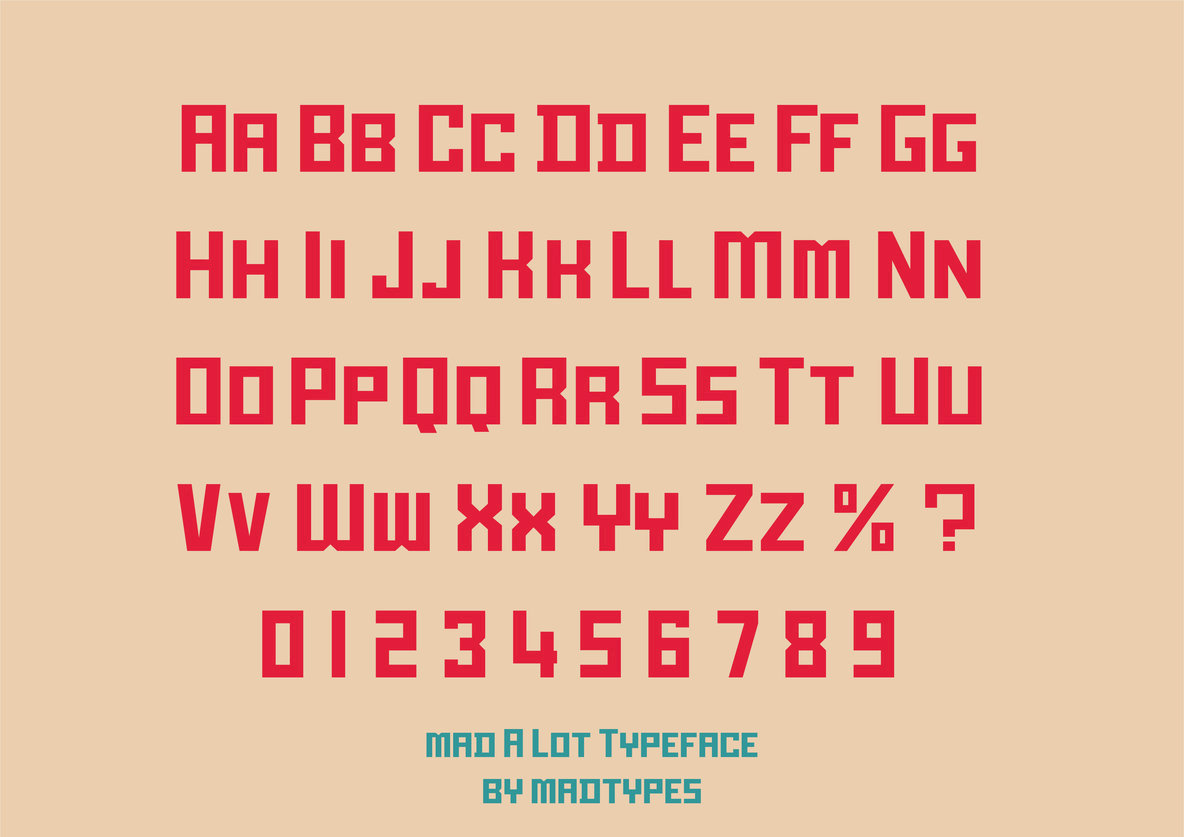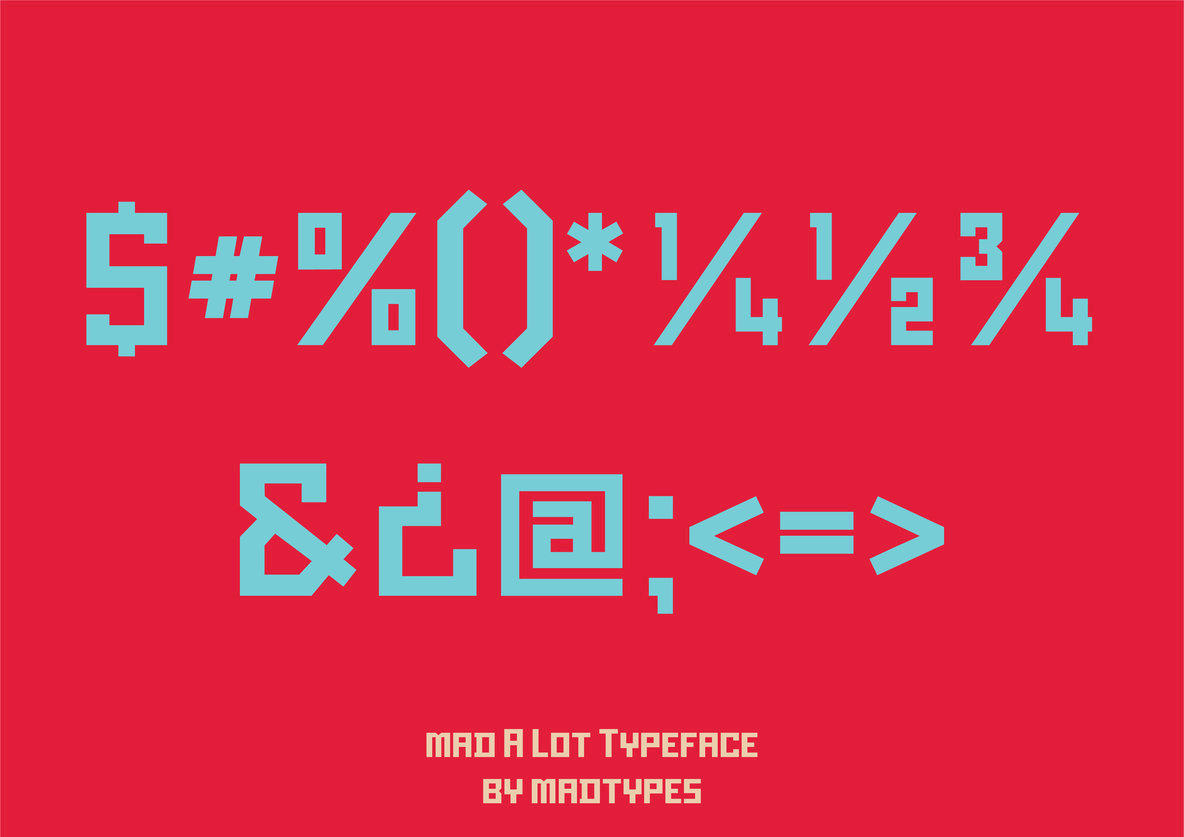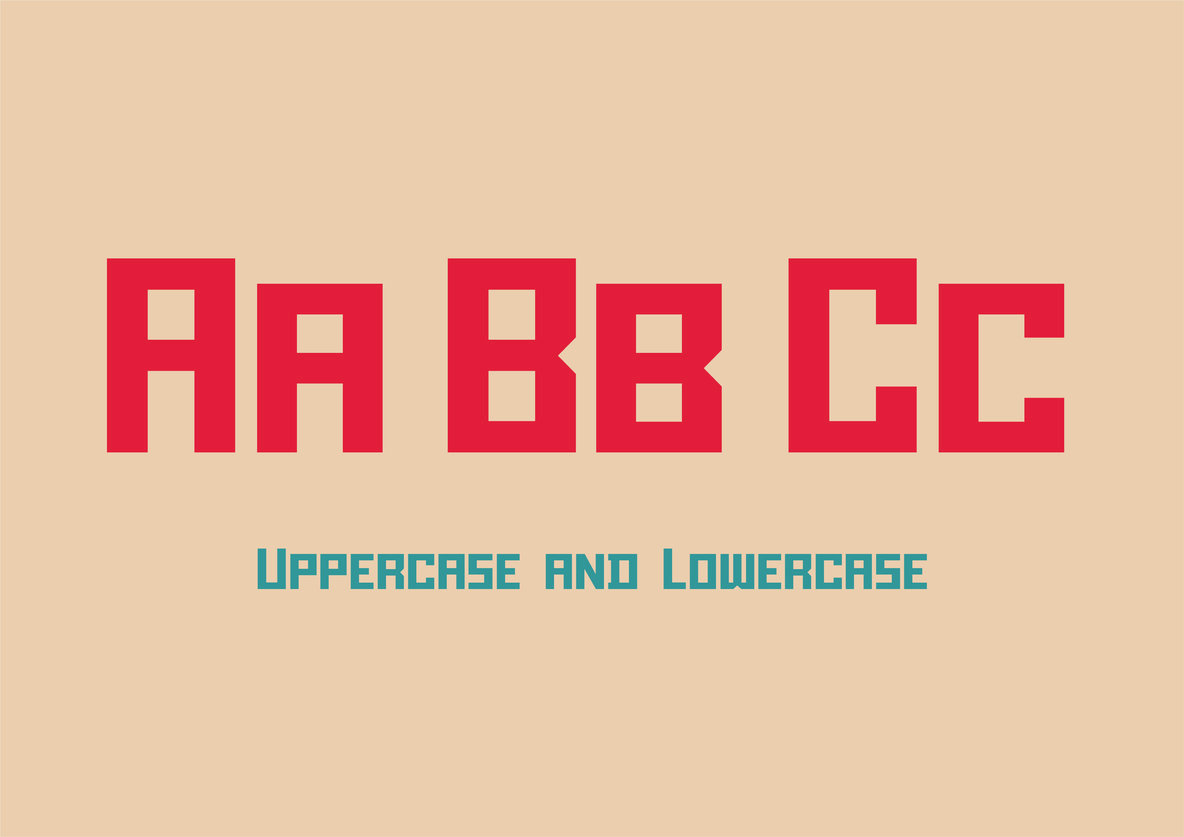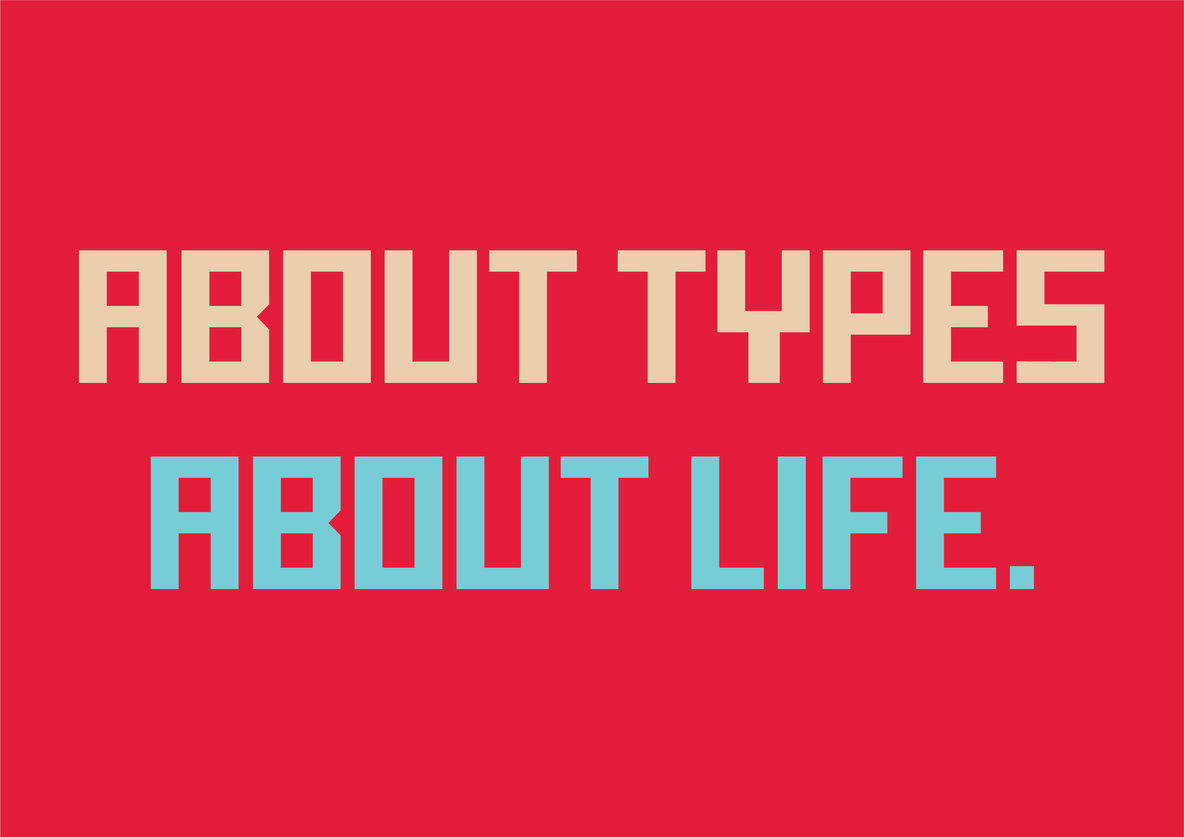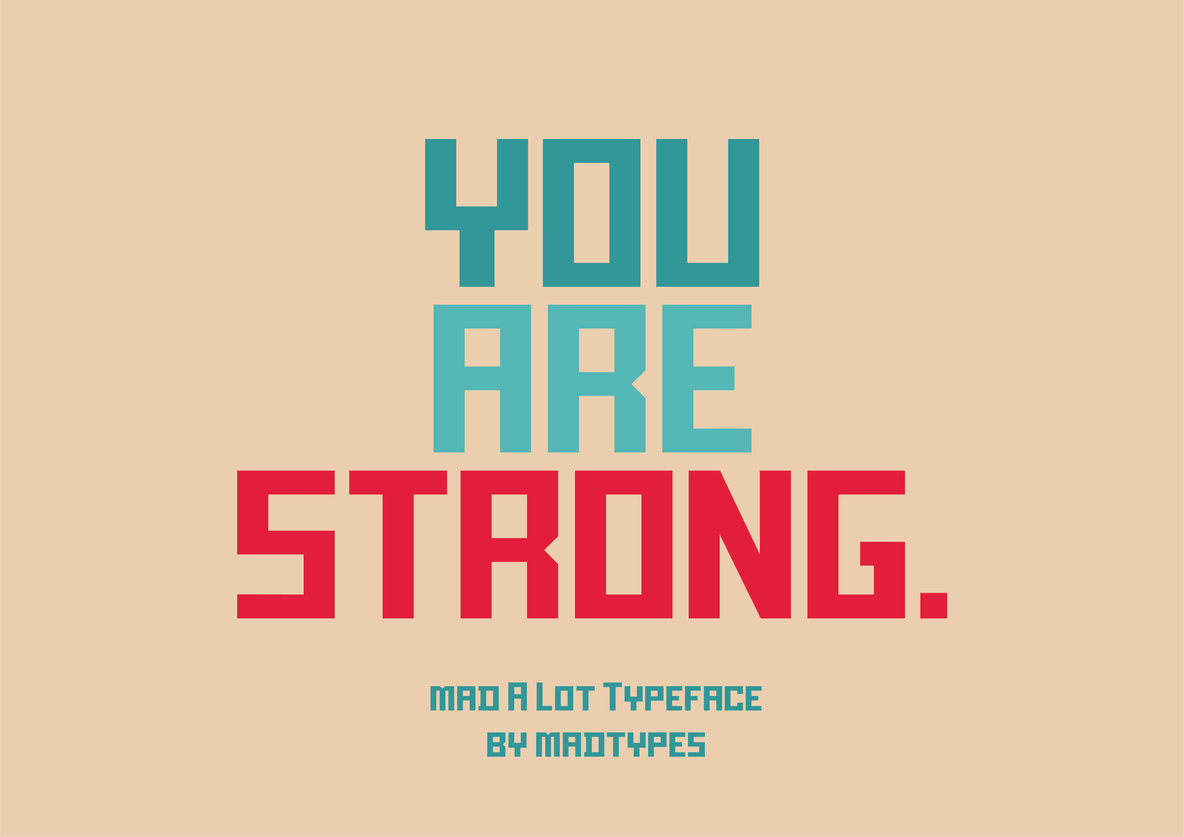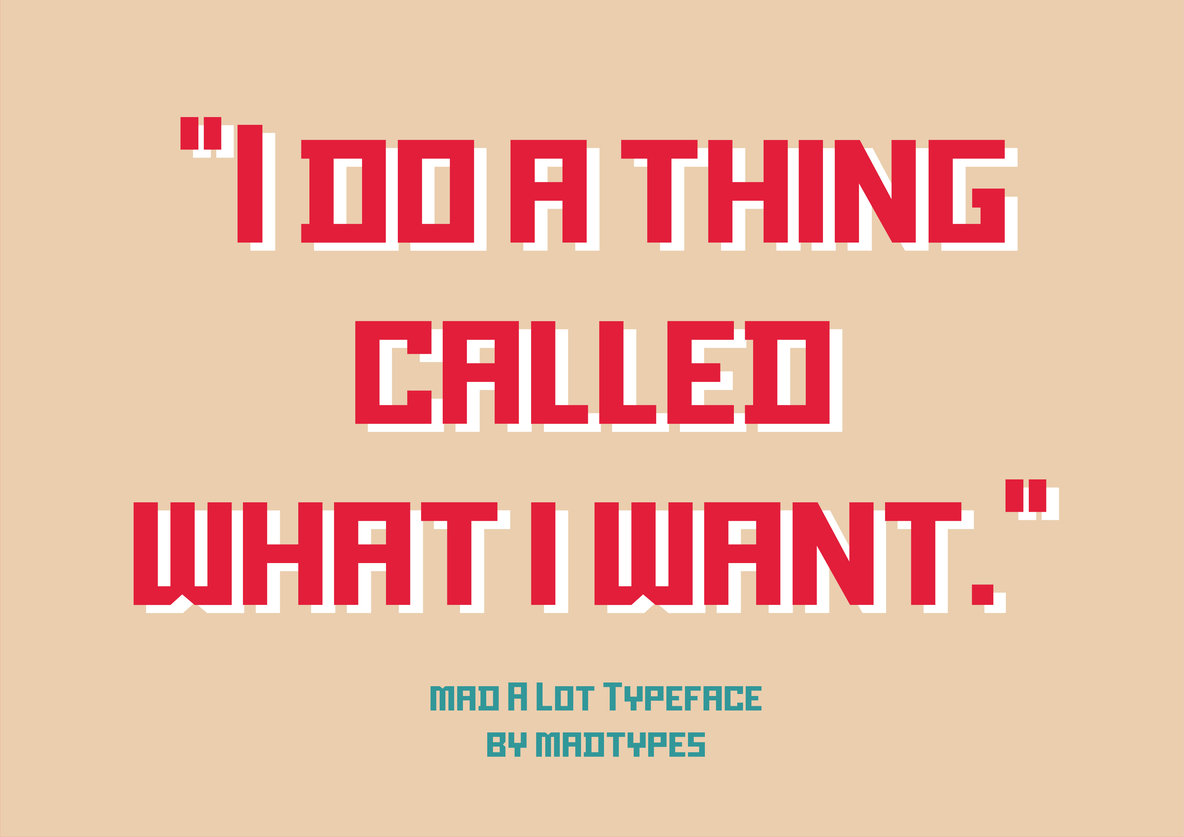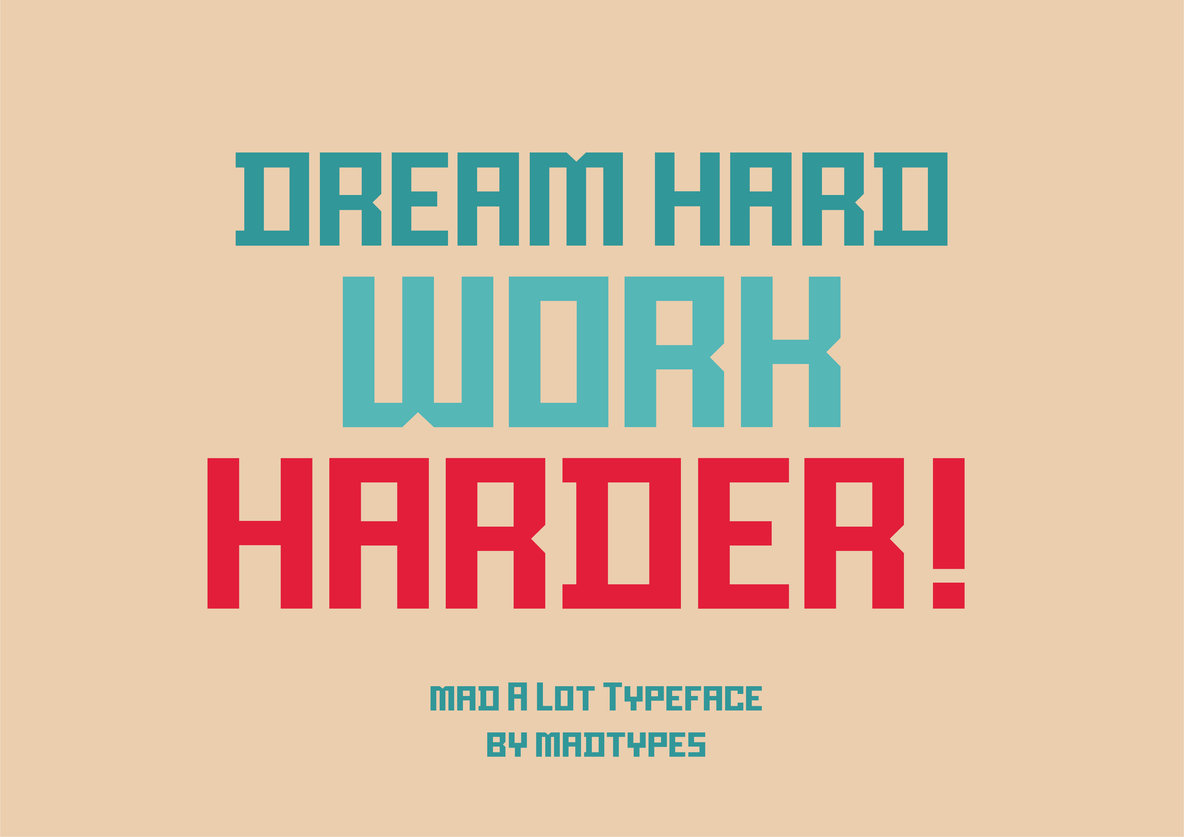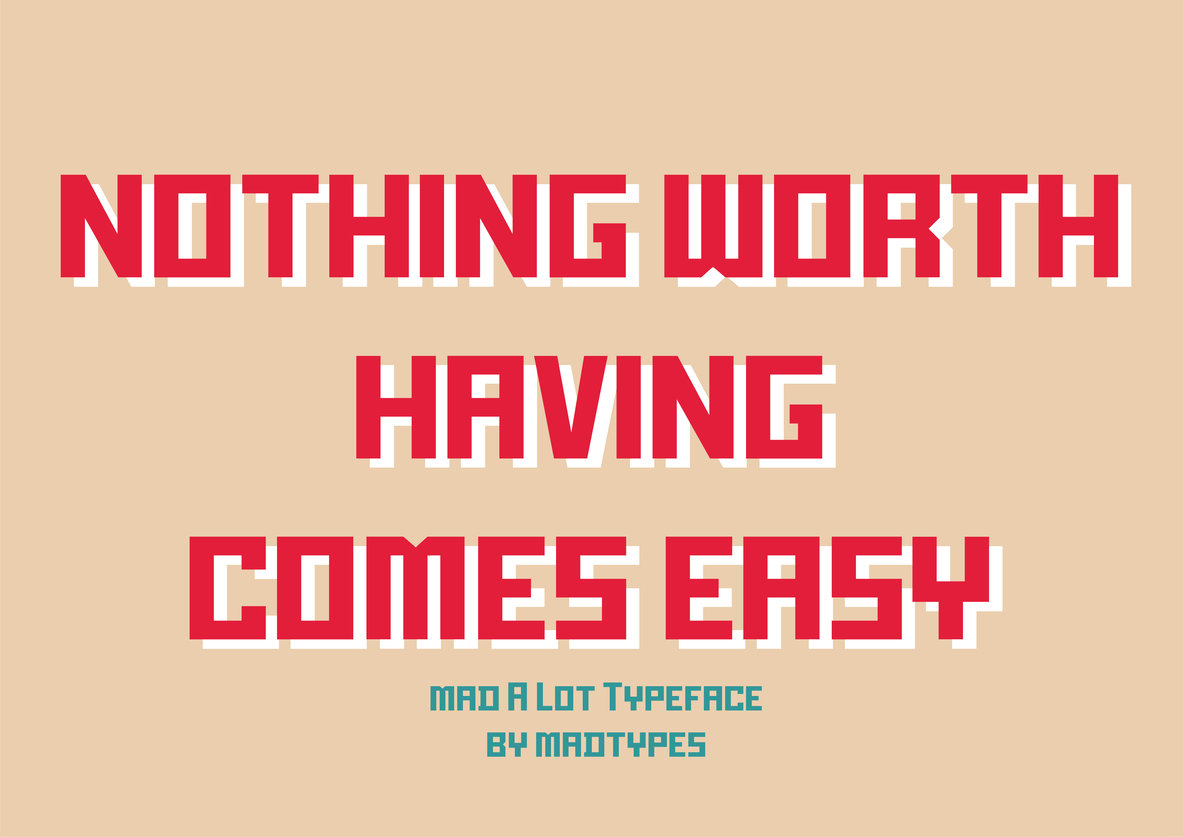
mad A Lot Font
mad A Lot Regular
Inspired by geometric forms and spatial construction, Mad A Lot offers a unique approach to type design. It addresses spatial challenges with its square-focused structure, enabling designers to work with space constraints in innovative ways.Mad A Lot: Rectangular Typographic Inspiration
Distinct Characteristics